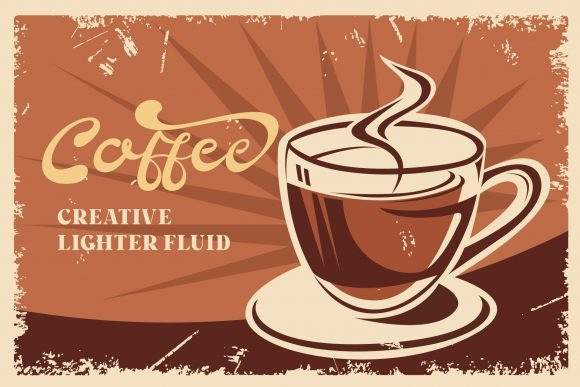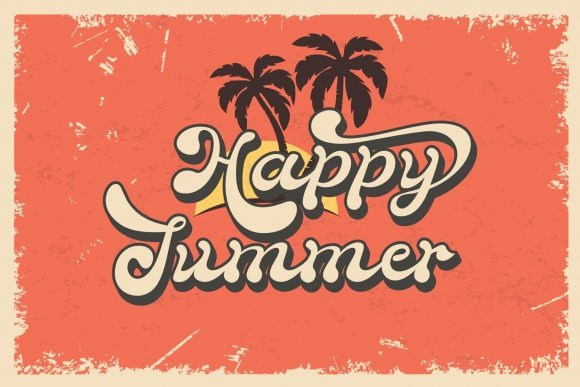
Ralynda Script Font
Ralynda is a delicate and elegant handwritten font. Its distinct and well rounded letters make this font a masterpiece. Fall in love with its incredibly versatile style and use it to create spectacular designs!